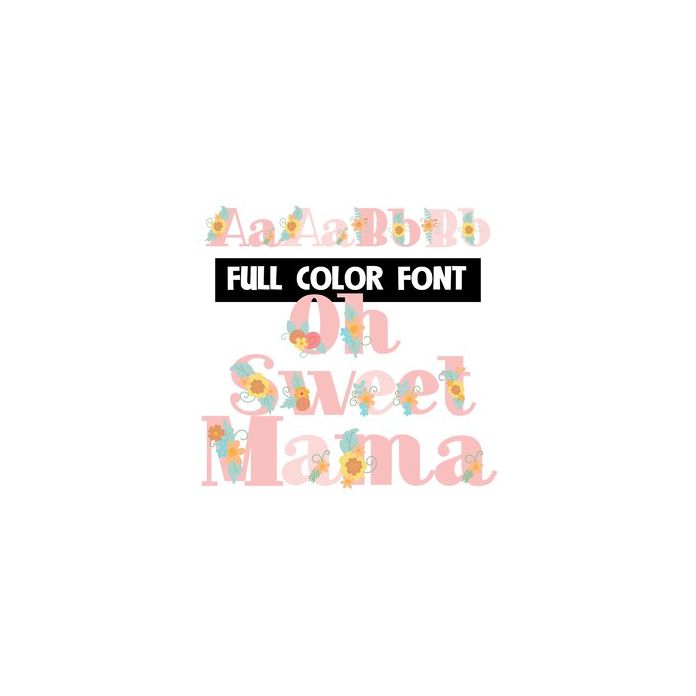
This full-color font features pink serif lettering with a pretty flower spray on each letter. There is an alt uppercase with secondary colors that you can access through your system's character map. This font works best for titles, displays, posters and more. Please note color fonts will show as black in non compatible programs. This font type is compatible with Silhouette Studio.